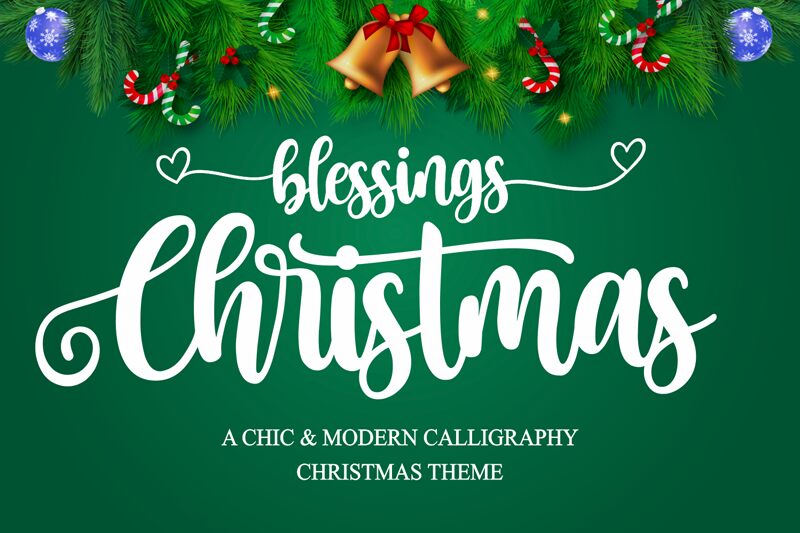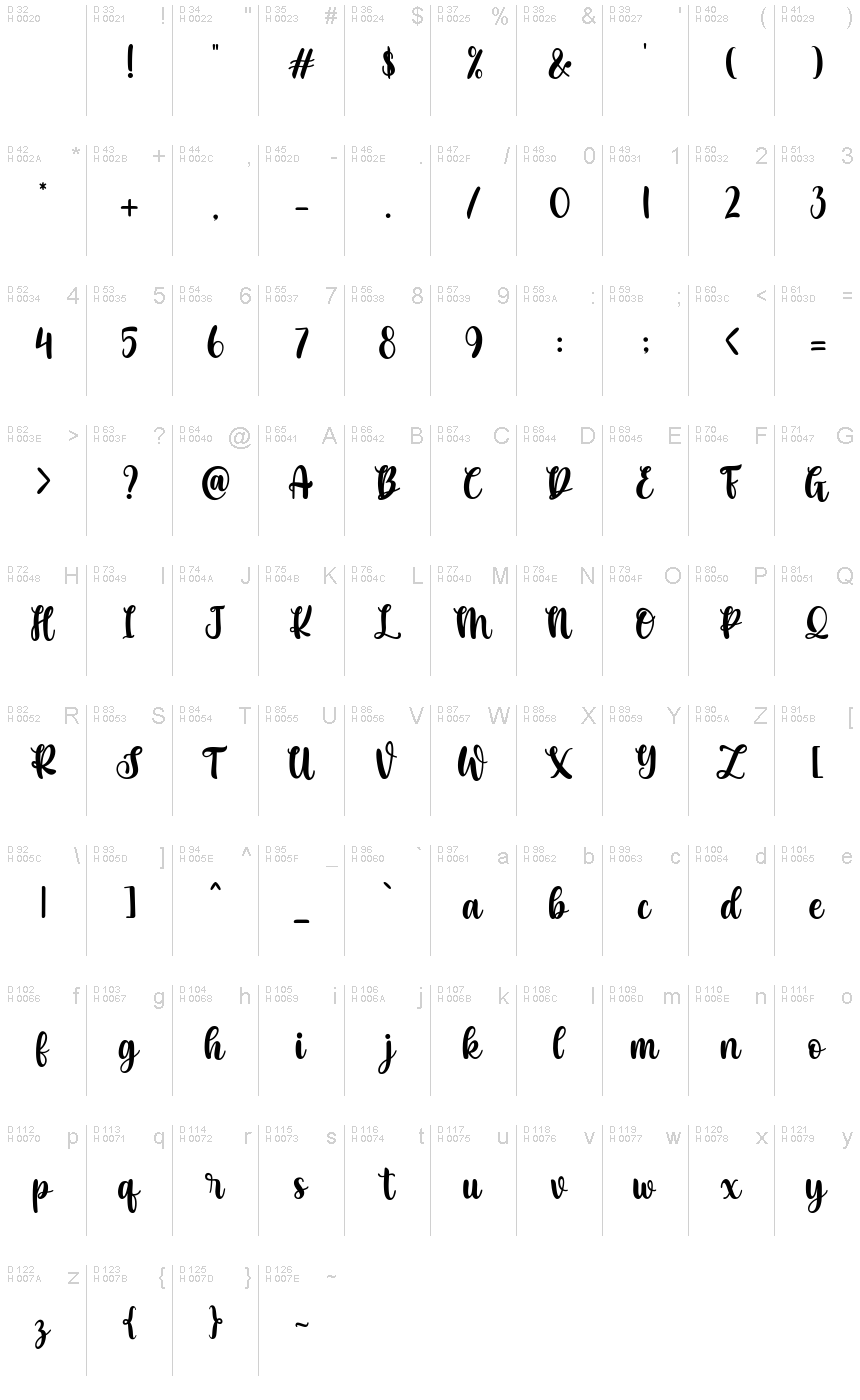
ChristmasBlessings
The Christmas Blessings font by Mozatype exudes a captivating, handcrafted elegance. Its bold, brush-like strokes create a sense of warmth and festivity, evoking the charm of a heartfelt holiday greeting. The calligraphic style lends a touch of artistry, seamlessly blending tradition and modernity. This versatile font shines in a variety of applications, from holiday-themed designs and greeting cards to logo treatments and editorial layouts.
Versatile and visually arresting, the Christmas Blessings font by Mozatype can elevate a wide range of creative projects. Its bold, calligraphic style makes it an excellent choice for holiday-inspired designs, such as Christmas cards, invitations, and seasonal marketing materials. The font's distinctive character also lends itself well to branding and logo applications, adding a touch of unique personality to corporate identities and personal brands.